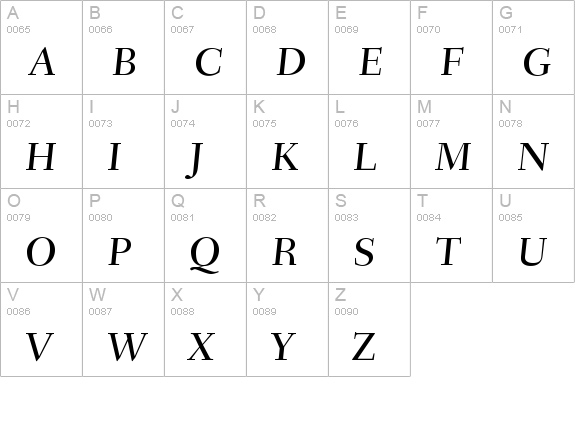
Fairfield LH 55 Caption Medium is a balanced, medium-weight variant in the Fairfield typeface family \xE2\x80\x94 well suited to sub-headlines, navigation, and balanced editorial work.
Fairfield LH 55 Caption Medium font is a modern and sleek typeface that exudes sophistication and professionalism. With its clean lines and balanced proportions, this font is perfect for adding a touch of elegance to any project. Whether you're designing a website, creating a logo, or crafting a presentation, Fairfield LH 55 Caption Medium font will help you make a lasting impression. The versatility of this font makes it suitable for a wide range of design applications, from print materials to digital projects. Its medium weight and clear legibility make it ideal for headlines, subheadings, and body text alike. With its timeless design, Fairfield LH 55 Caption Medium font is sure to stand the test of time and remain a staple in your font library. Best of all, Fairfield LH 55 Caption Medium font is freely available to download at FontsMarket.com. Simply visit the website and start using this elegant font in your projects today. Don't miss out on the opportunity to enhance your designs with this beautiful and versatile typeface.